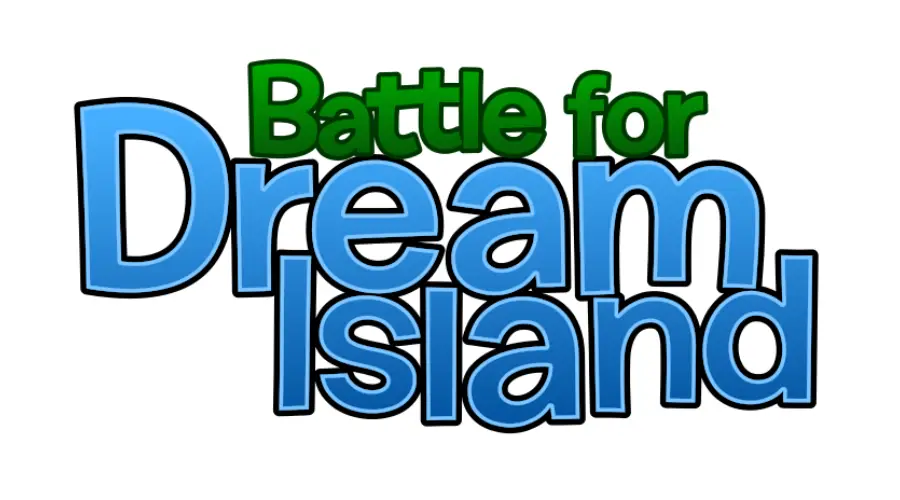
Battle for Dream Island Font
The Battle for Dream Island Font is a playful and unique typeface associated with the popular animated web series Battle for Dream Island (BFDI). Created by Jacknjellify, the series features quirky characters competing in challenges to win a luxurious island paradise. The font used in the BFDI logo is a key element of its branding, giving it a fun and energetic vibe.
The Battle for Dream Island web series uses different fonts for its logos and various on-screen elements across seasons:
Main Logo Fonts by Season
• Seasons 1-3 (BFDI/BFDIA/IDFB): The iconic logo uses Shag Lounge from House Industries, a playful sans-serif with a distinctive bouncing baseline. This is the most recognized “BFDI font.”
• Season 4 (BFB): The logo switched to Albertus Nova Black (a variant of the Albertus typeface).
• Season 5 (TPOT): The title uses Wolpe Fanfare.
Other Fonts in the Series
The show uses dozens of other fonts for various elements (voting screens, signage, etc.), including Helvetica Neue, Century Gothic, Comic Sans, and many others.
Free Alternatives
Similar free fonts suggested by fans include:
Quache Black (similar to Shag Lounge)
This font captures the same fun and lively spirit as the Battle for Dream Island Font, making them excellent choices for creative projects.
The definitive Battle for Dream Island font is Shag Lounge, the playful, bouncy typeface used for the iconic logo in seasons 1–3, though it’s a commercial font requiring purchase from House Industries. Subsequent seasons evolved their visual identity. BFB adopted Albertus Nova Black, while TPOT introduced Wolpe Fanfare, yet the series overall employs dozens of fonts for its diverse graphic elements. For creators seeking that classic BFDI aesthetic without licensing fees, free alternatives like Quache Black and online text generators offer accessible substitutes, ensuring the show’s distinctive typographic spirit remains within reach.